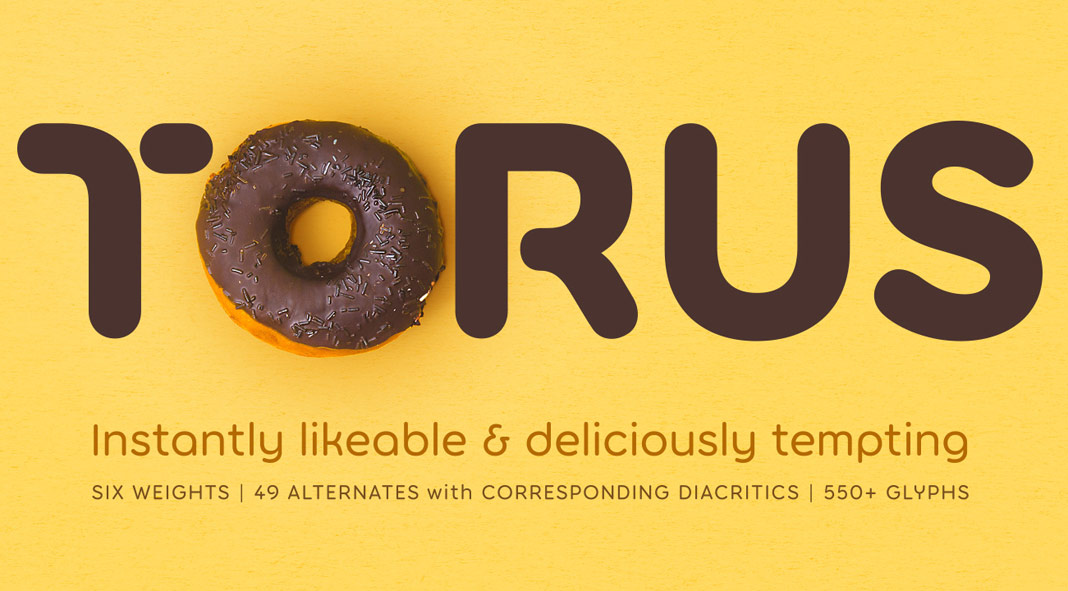
Torus font family, a sans serif display typeface designed and published by Paulo Goode.
Published in 2017, Torus is a modern sans serif that comes in 6 weights ranging from thin to heavy. Its characteristic look is based on a simple, rounded monoline typeface. It was designed mainly for display use including eye-catching titles as well as branding purposes and logos. Please read more below or purchase the full type family as low budget introductory offer (only for a limited time) on Fontspring.
Some of the key features.
The simple round monoline shapes result in a modern and welcoming appearance. The six weights are well suited for a great range of typographic applications. Paulo Goode has also equipped the family with an extensive set of alternate characters, which give designers much more scope for their typographic work. For additional information on all features, just follow the link below.